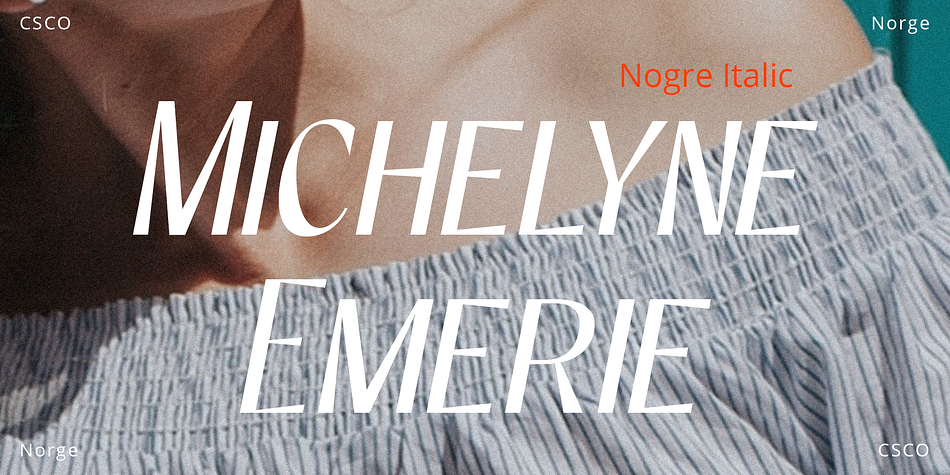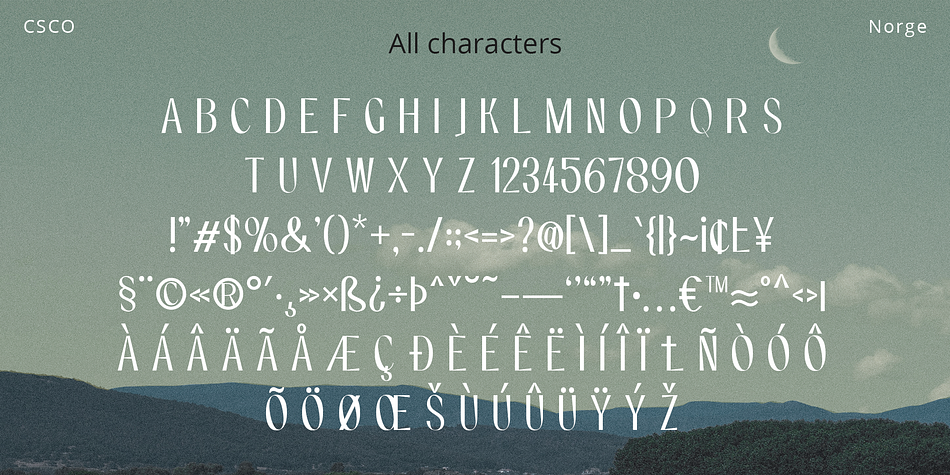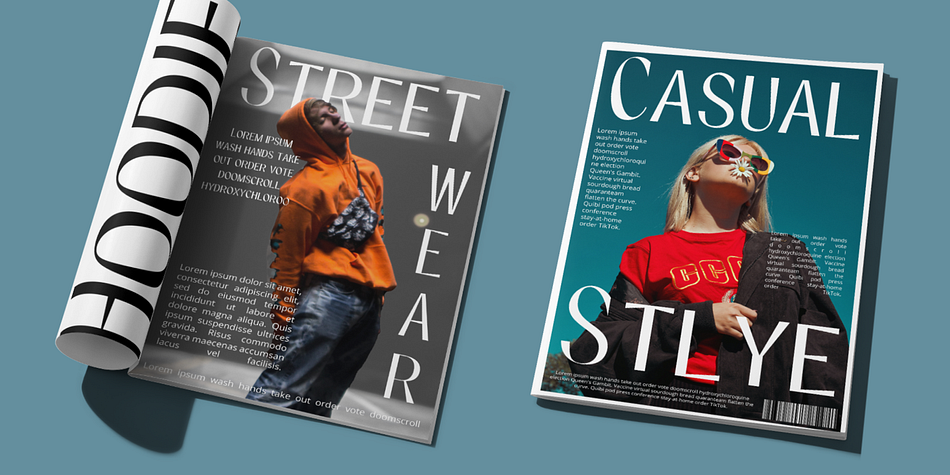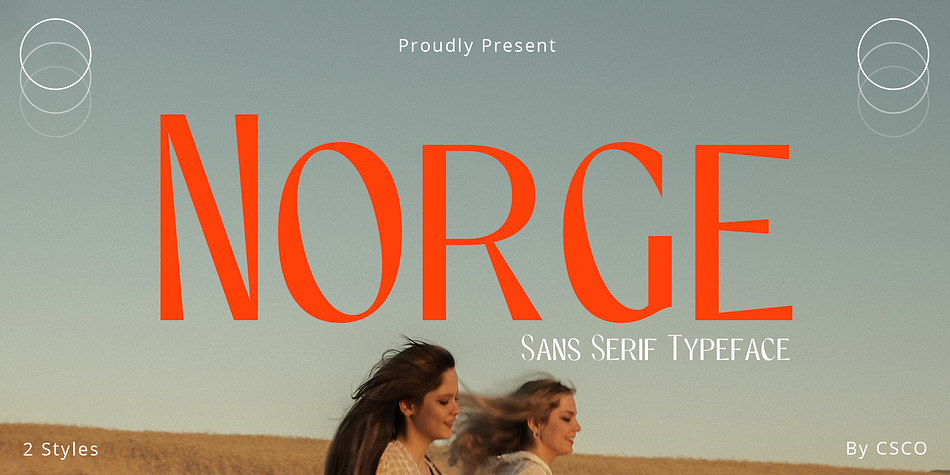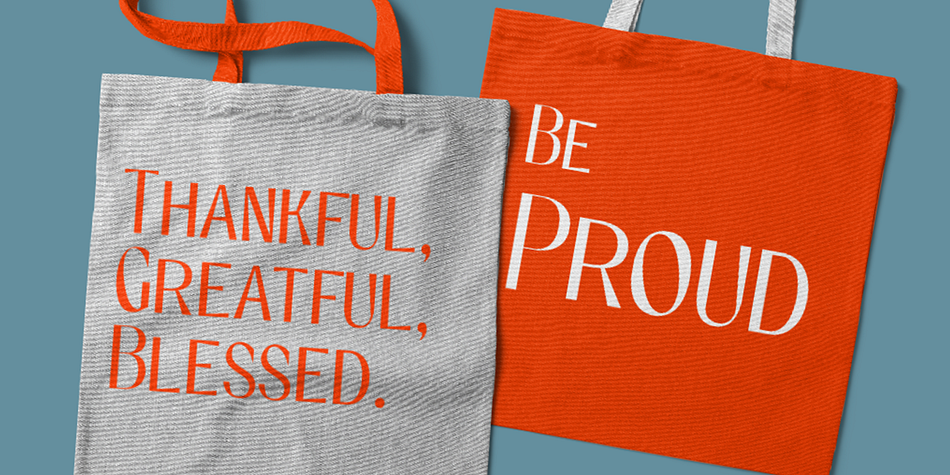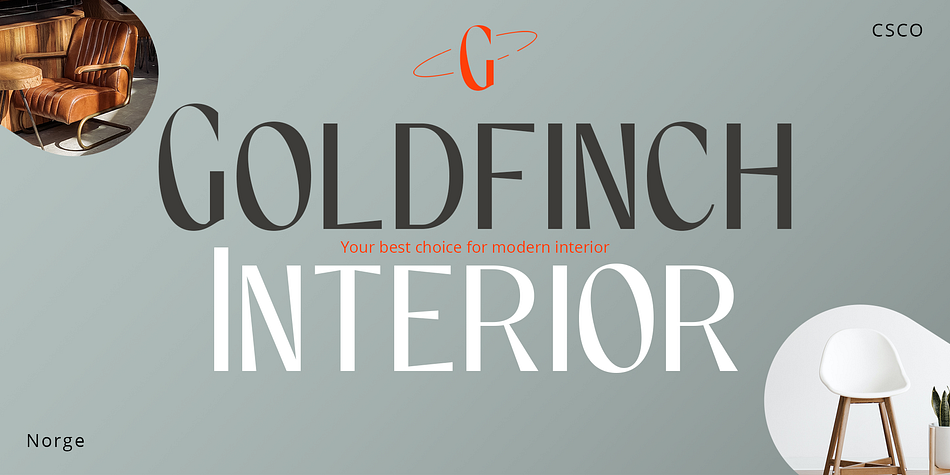
Norge
Norge is a display sans font family. This typeface has two styles and was published by Craft Supply Co.
Introducing Norge – Contemporary Sans Serif
Discover Norge, where elegance meets functionality. At first glance, its sleek design captivates.
Uniquely Modern Shapes
Each stem bends slightly, injecting playfulness. Additionally, the mitered finishes offer a crisp look. This subtle tilt in structure catches the eye, thus ensuring standout text.
Ideal for Display
Bold and commanding, Norge excels in headlines. It’s crafted to make your words pop. Moreover, large or small, Norge remains clear and readable.
Versatile in Application
From posters to web graphics, Norge adapts seamlessly. Its characters shine across various applications. Furthermore, it harmonizes with numerous design styles with ease.